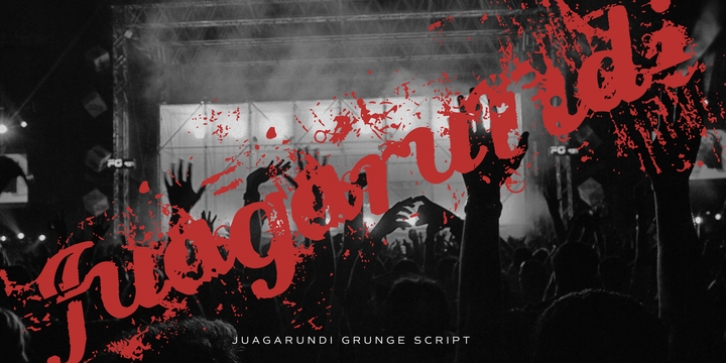
Jaguarundi was designed by Ryoichi Tsunekawa and published by Dharma Type. Jaguarundi contains 2 styles and family package options.
This extremely scratched and decadent font is suitable for posters of rock or grunge.
Jaguarundi·